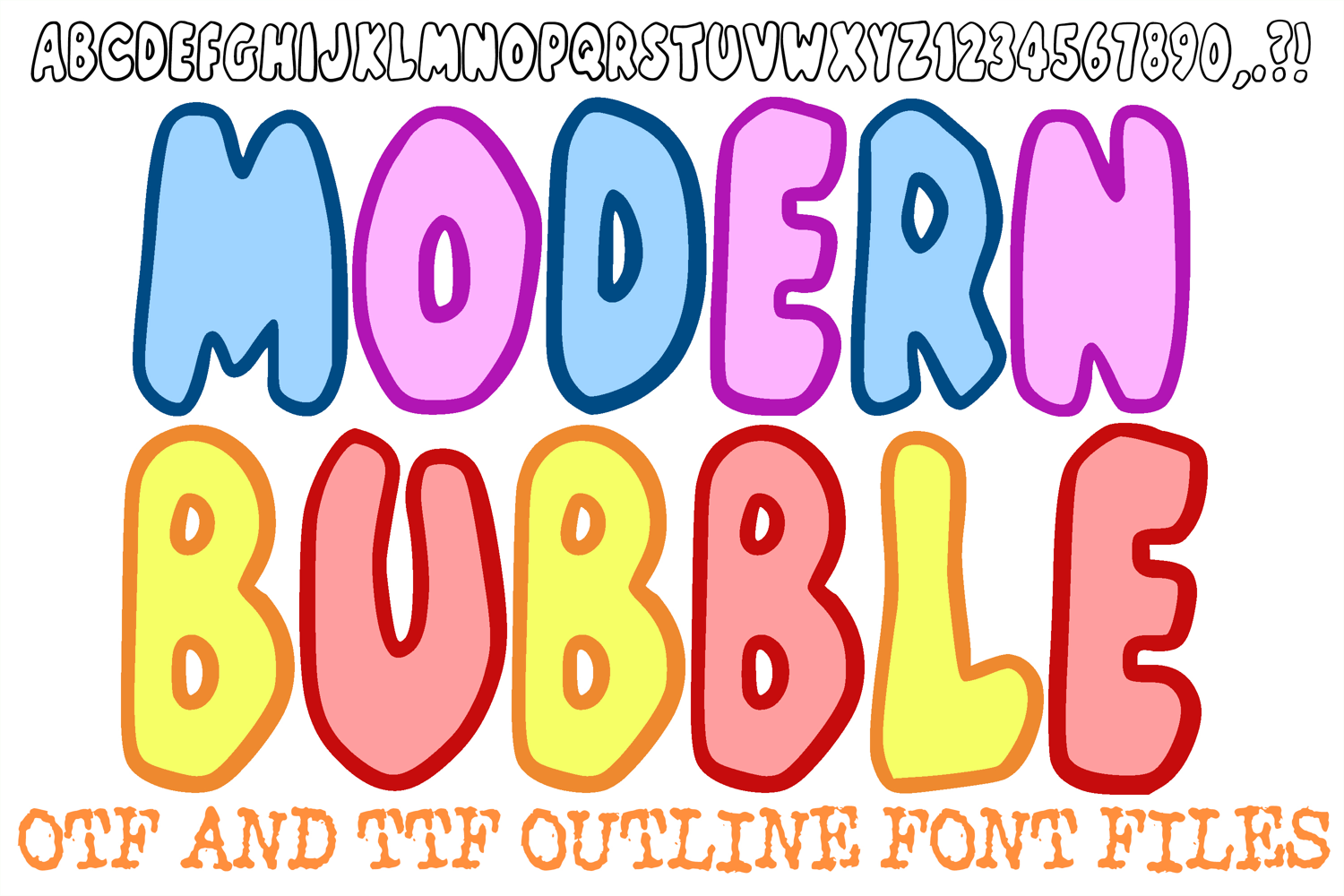
Modern Bubble Font Hand Drawn Cartoon Lettering ABC OTF Type by Squeeb Creative
Modern Bubble Font Hand Drawn Cartoon Lettering ABC OTF Type
The Modern Bubble Font is a playful and high-energy display typeface that features bold, rounded cha…